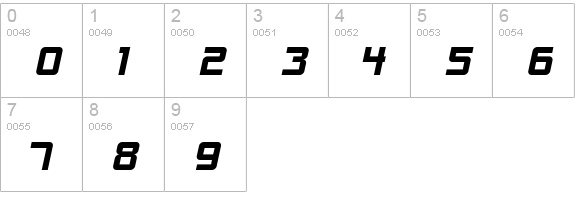
SF Alien Encounters Solid Italic Font Details
SF Alien Encounters Solid Italic is a distinctive, italic variant in the SF typeface family \xE2\x80\x94 well suited to design and typography projects.
SF Alien Encounters Solid Italic font is a captivating and otherworldly typeface that will transport your designs to galaxies far beyond our own. With its sleek and futuristic design, this font is perfect for adding an extraterrestrial touch to any project. The solid italic style of SF Alien Encounters gives your text a sense of movement and dynamism, creating a visually striking effect that is sure to captivate your audience. Whether you are designing a science fiction book cover, creating an otherworldly logo, or simply want to add a touch of alien intrigue to your website, this font has you covered. One of the best features of SF Alien Encounters Solid Italic is that it is freely available to download at FontsMarket.com. This means that you can add this stunning font to your collection without any cost, allowing you to explore its endless possibilities without breaking the bank. The attention to detail in SF Alien Encounters Solid Italic is truly remarkable. Each letter is meticulously designed to evoke a sense of the unknown, with sharp angles and unique curves that give the font a distinct alien aesthetic. The italic slant adds an extra layer of sophistication and style, making this font a true standout in any design. Whether you are a professional designer or a hobbyist, SF Alien Encounters Solid Italic font is a must-have in your arsenal. Its versatility and unique design make it perfect for a wide range of projects, from posters and flyers to digital media and beyond. So why wait? Head over to FontsMarket.com and download SF Alien Encounters Solid Italic font today. Let your imagination run wild and bring your designs to life with this captivating and free font. Embark on a journey to the stars and make your designs truly out of this world.